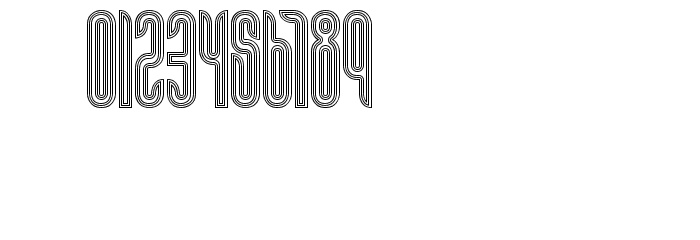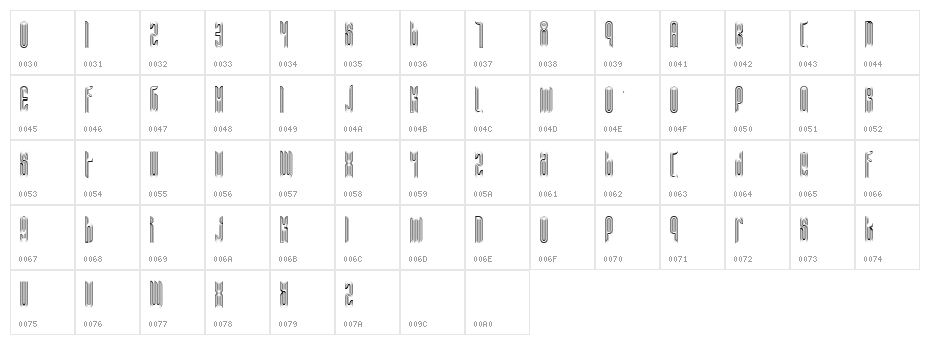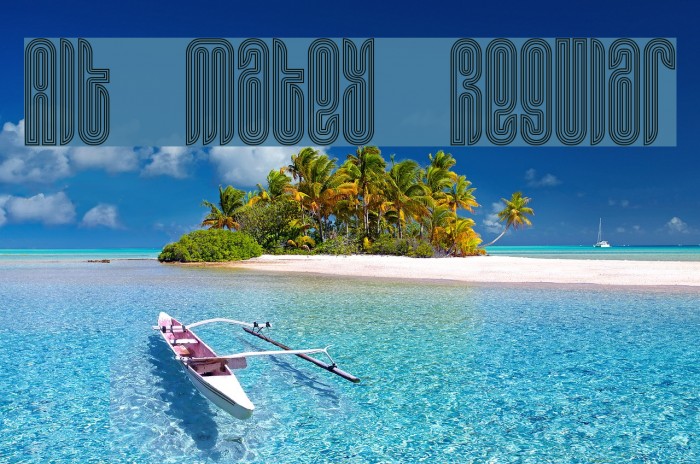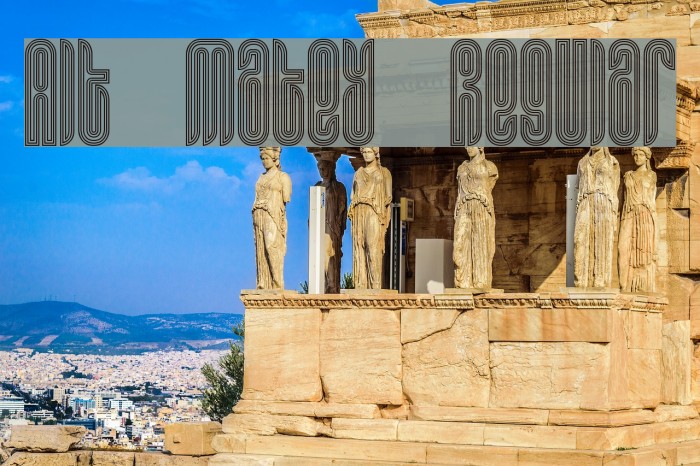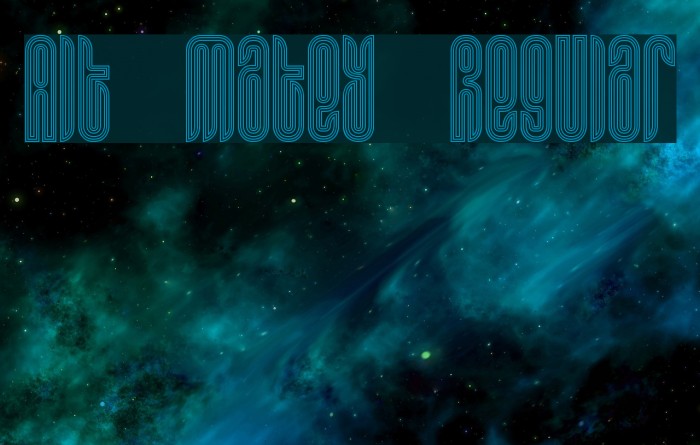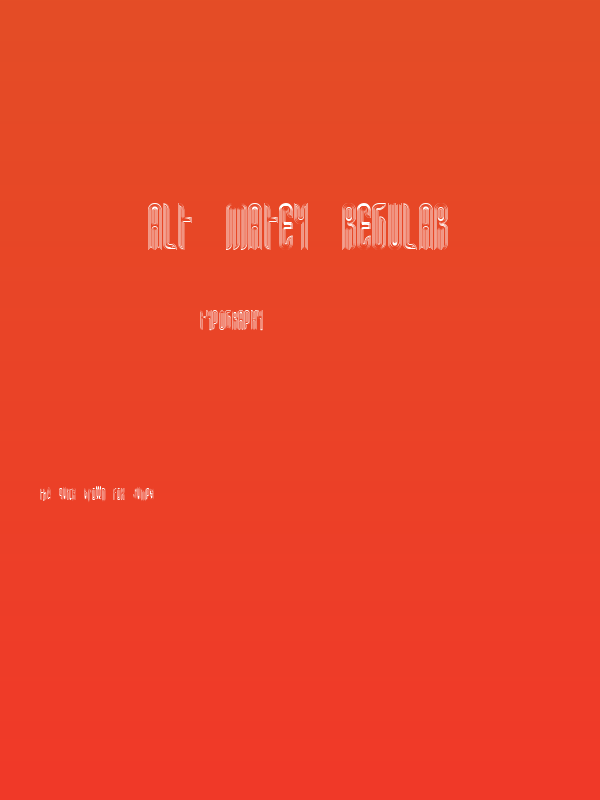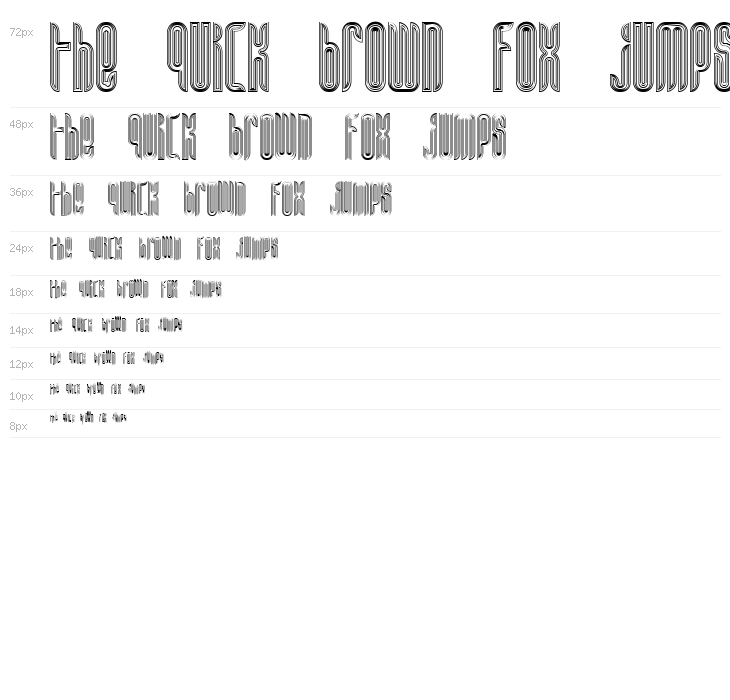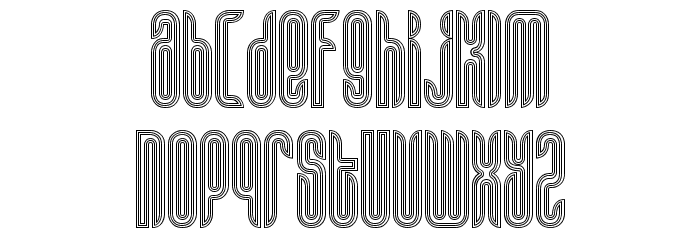
Alt Matey Regular Font
Alt Matey Regular Description
This font features a unique, decorative style with a multi-line, outlined design that gives it a bold and striking appearance. The characters are constructed with multiple parallel lines, creating a sense of depth and intricacy. The uppercase and lowercase letters maintain a consistent width, while the numbers and special characters follow the same design principles. This font is highly stylized, making it ideal for creative and eye-catching projects. Its distinct look is reminiscent of retro and vintage aesthetics, yet it maintains a modern edge.
| Overall Style | Retro, Modern, Decorative |
| Proposed Projects | Ideal for posters, logos, branding, and any design project that requires a bold, eye-catching typeface. |